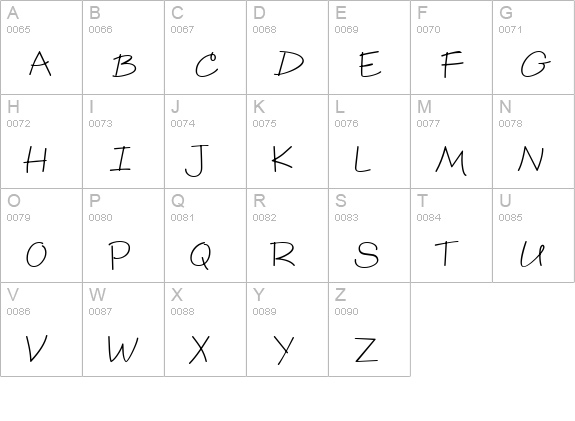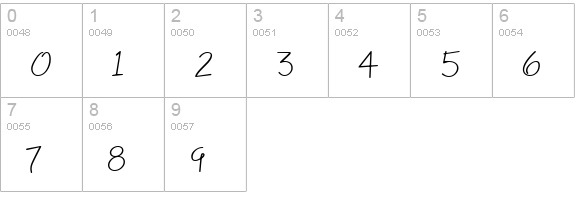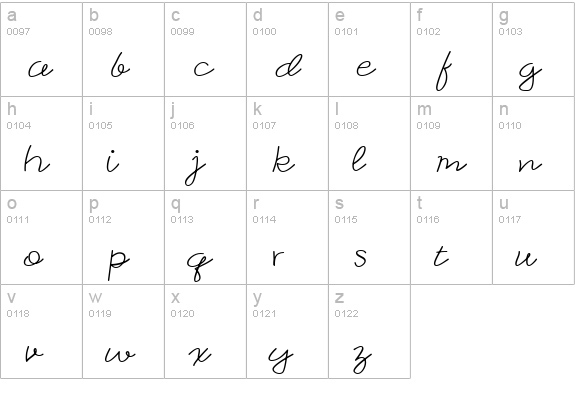
CK Signature Font Details
Introducing CK Signature font, a stylish and elegant typeface perfect for adding a touch of sophistication to your design projects. This font features clean lines and a modern aesthetic, making it ideal for a wide range of applications from branding to invitations. CK Signature font exudes a sense of luxury and professionalism, making it a versatile choice for both personal and commercial use. What's even better is that CK Signature font is available for free download at FontsMarket.com. Simply head over to the website and add this stunning font to your collection without any cost. Don't miss out on the opportunity to elevate your designs with CK Signature font today!